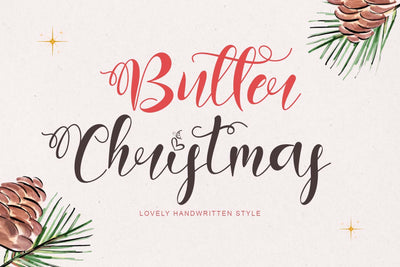
Butter Christmas
"Butter Christmas" is a very pretty handwritten font. This font is equipped with uppercase, lowercase, numerals, punctuation, ligatures, and multilingual support. It is very suitable for Christmas, Valentine, back to school, winter, autumn, birthday, wedding, engagement, and so on.